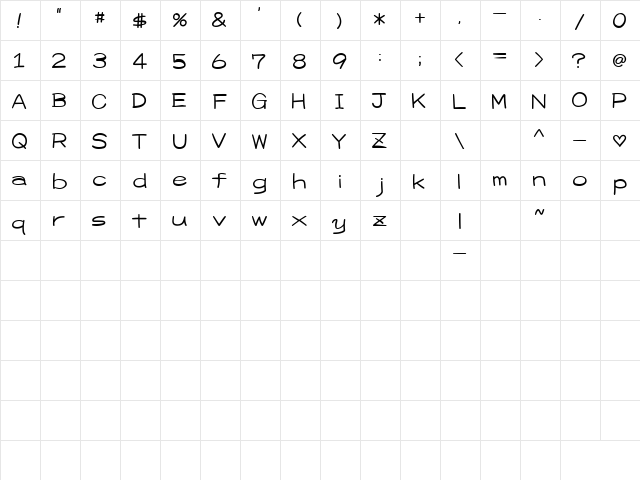
DD BRILLIANT2UAlp Regular
Design Context for DD BRILLIANT2UAlp Typeface
DD BRILLIANT2UAlp is a composed and adaptable typeface that performs quietly and consistently across a wide range of design contexts.